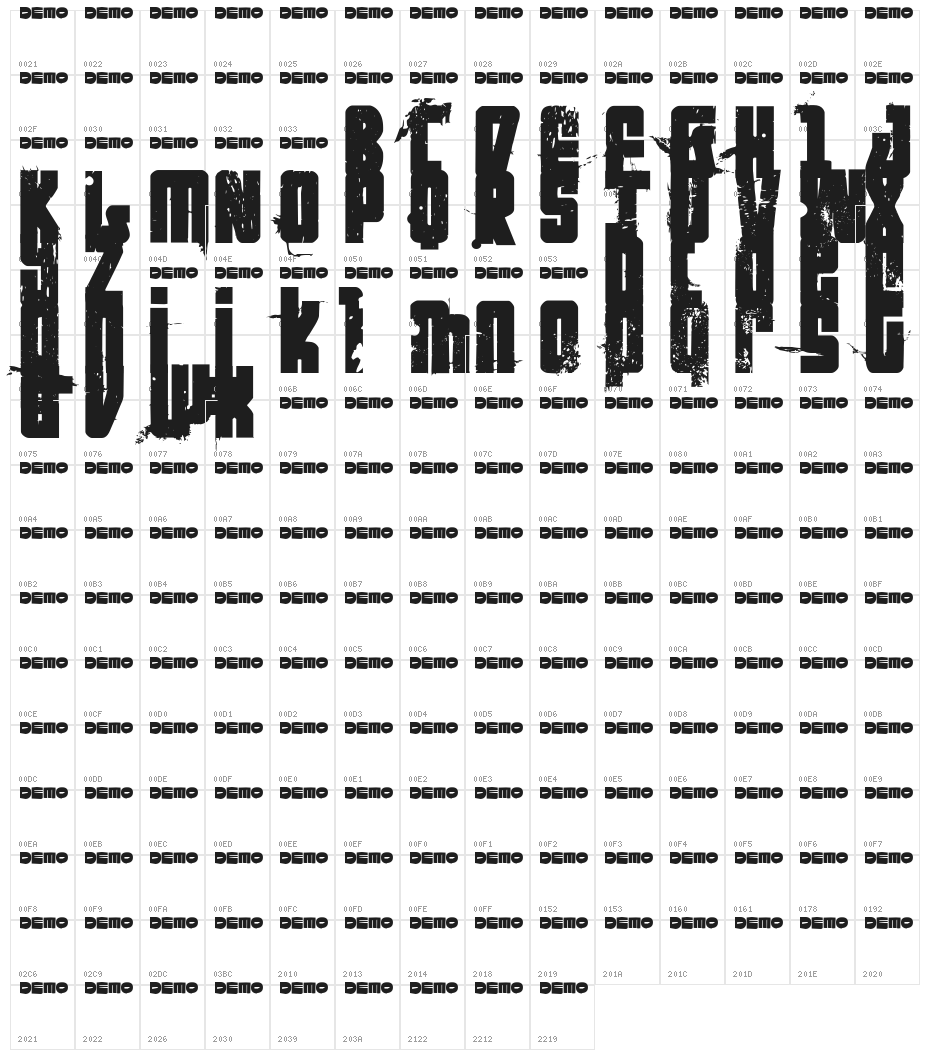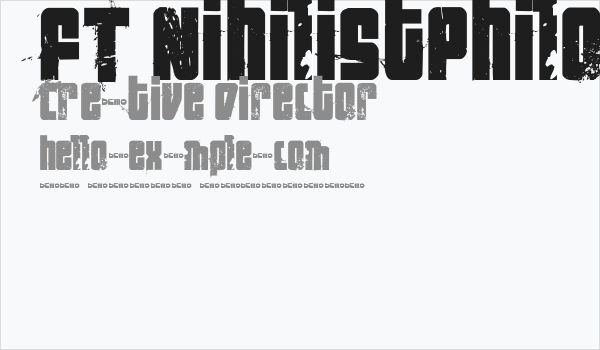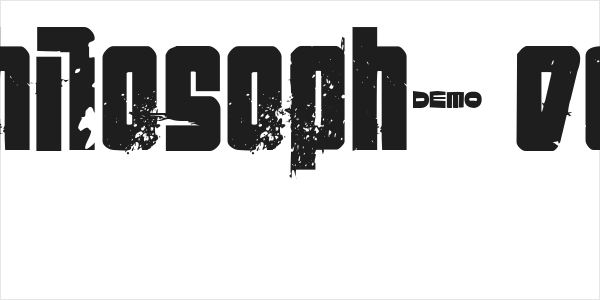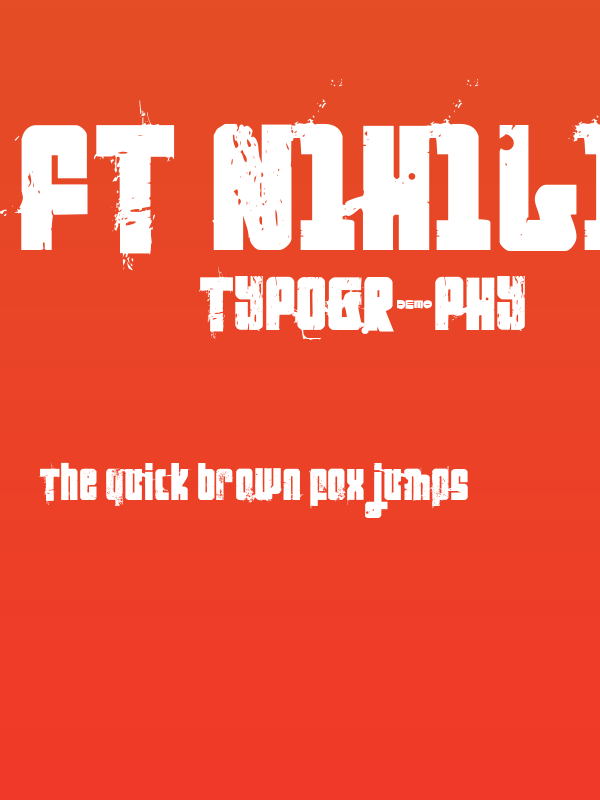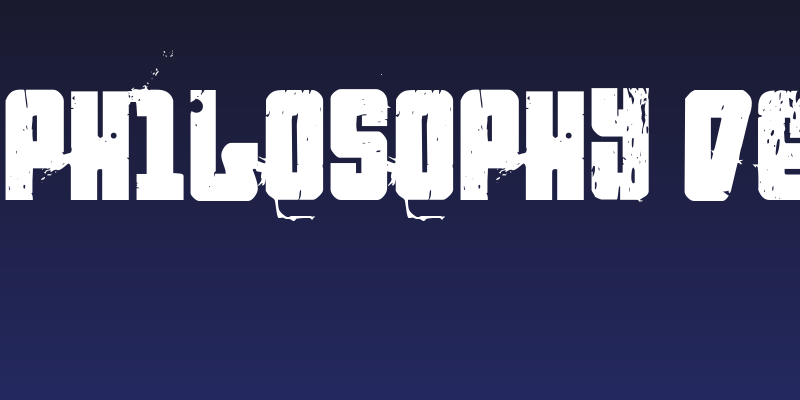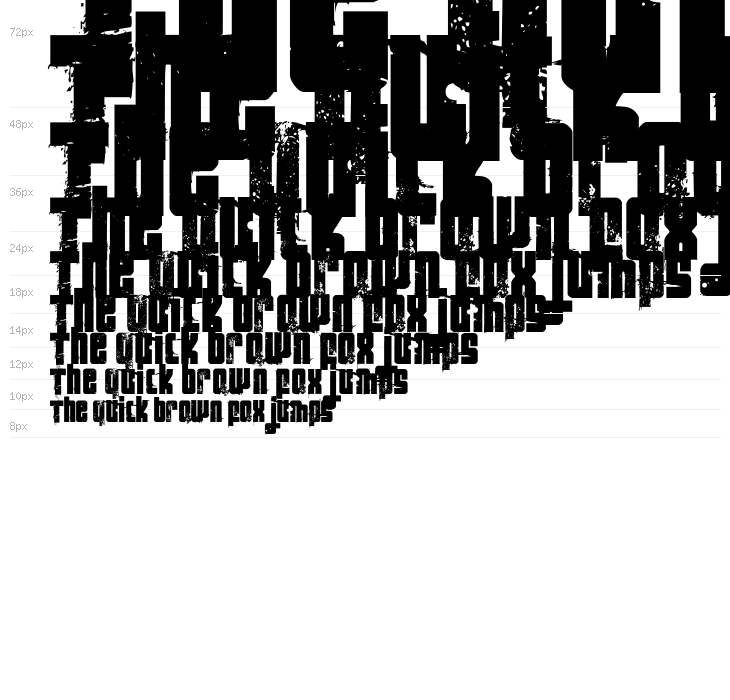
FT NihilistPhilosophy Demoversion Font
FT NihilistPhilosophy Demoversion Description
This font features a bold, distressed style with a grunge aesthetic. The characters are blocky and robust, with a rough texture that gives them a worn, weathered appearance. The uppercase and lowercase letters maintain a consistent width, creating a uniform look across the typeface. The numbers and special characters follow the same design, ensuring a cohesive visual theme. This font's unique style makes it stand out, ideal for projects that require a strong, impactful visual presence.
| Overall Style | Grunge, Distressed |
| Use Case | Headlines, Posters, Logos |
| Proposed Projects | Ideal for music album covers, posters, branding for edgy or alternative products, and any design needing a bold, impactful statement. |